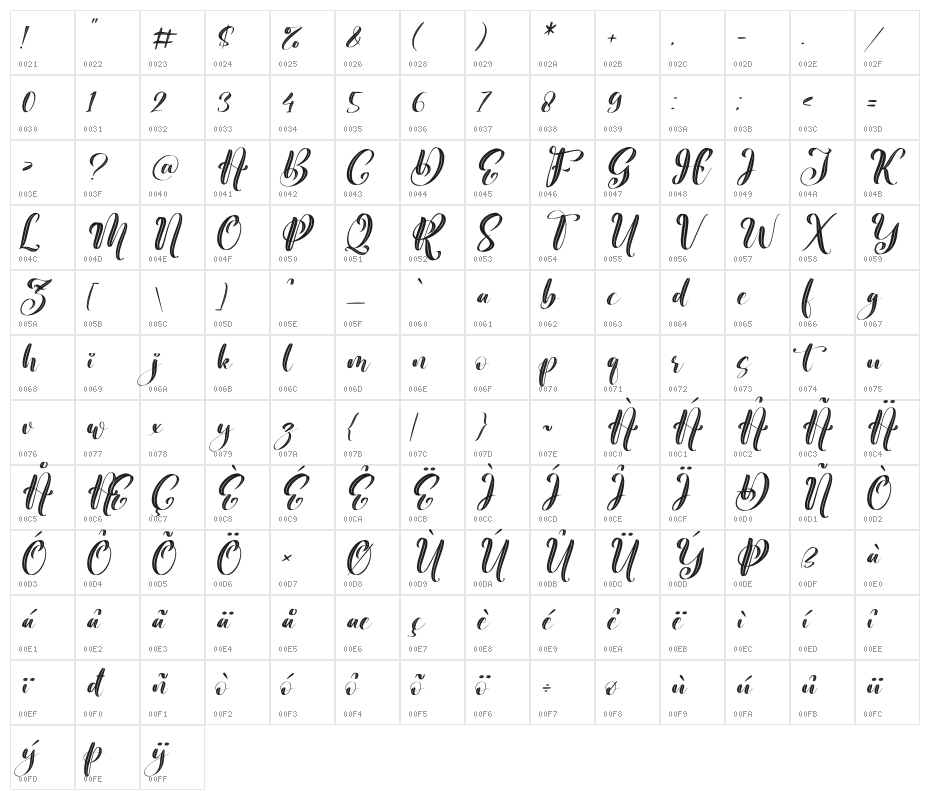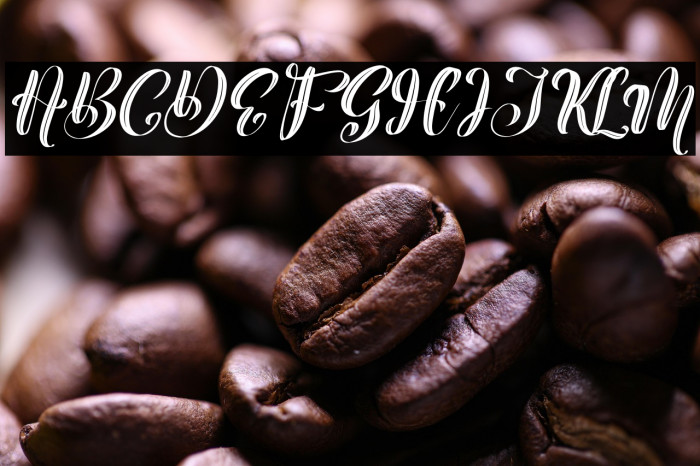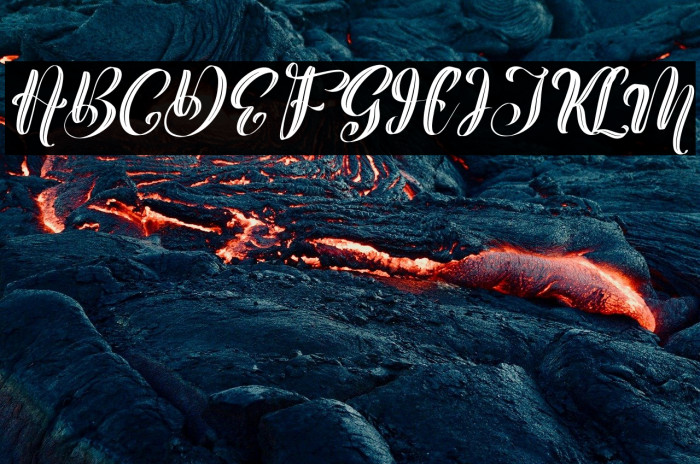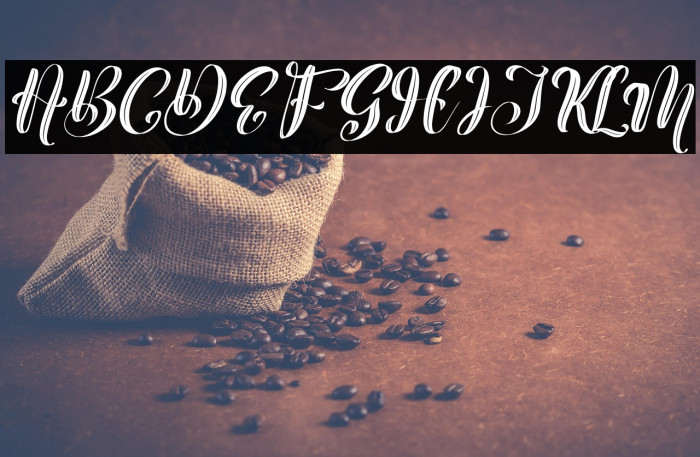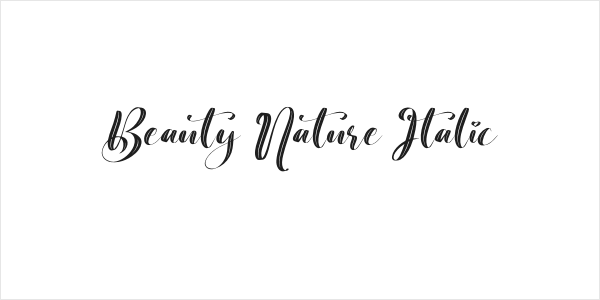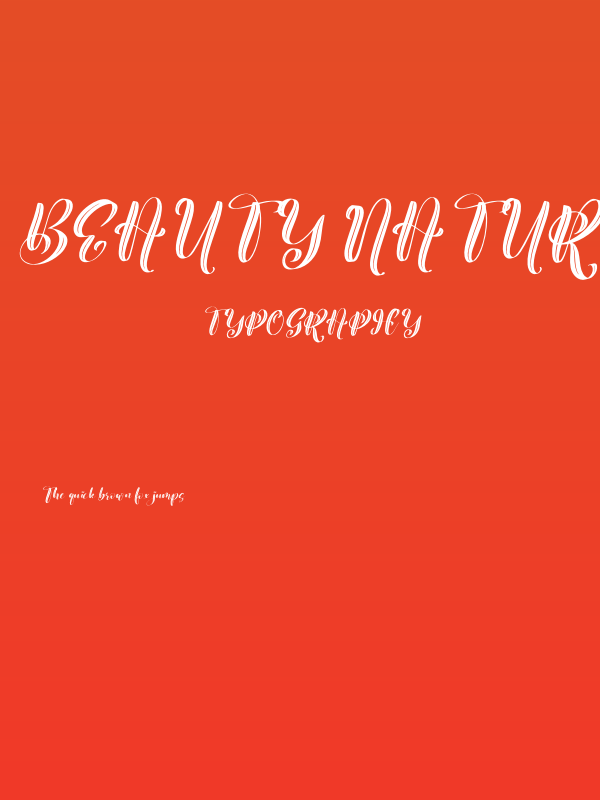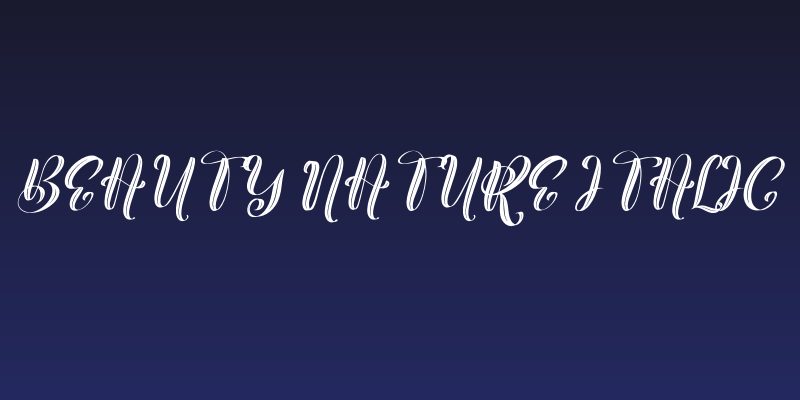
Beauty Nature Italic Font
Beauty Nature Italic Description
This elegant script font features a flowing, cursive style with intricate loops and flourishes. The characters are designed with a high contrast between thick and thin strokes, giving it a dynamic and sophisticated appearance. The uppercase letters are particularly ornate, with sweeping lines that extend beyond the baseline and cap height, adding a sense of movement and grace. The lowercase letters maintain a consistent style, with smooth connections that enhance readability despite the decorative nature. The numerals and special characters are crafted to match the overall aesthetic, ensuring a cohesive look across all text elements.
| Proposed Projects | Ideal for wedding invitations, luxury branding, greeting cards, and elegant packaging designs. |